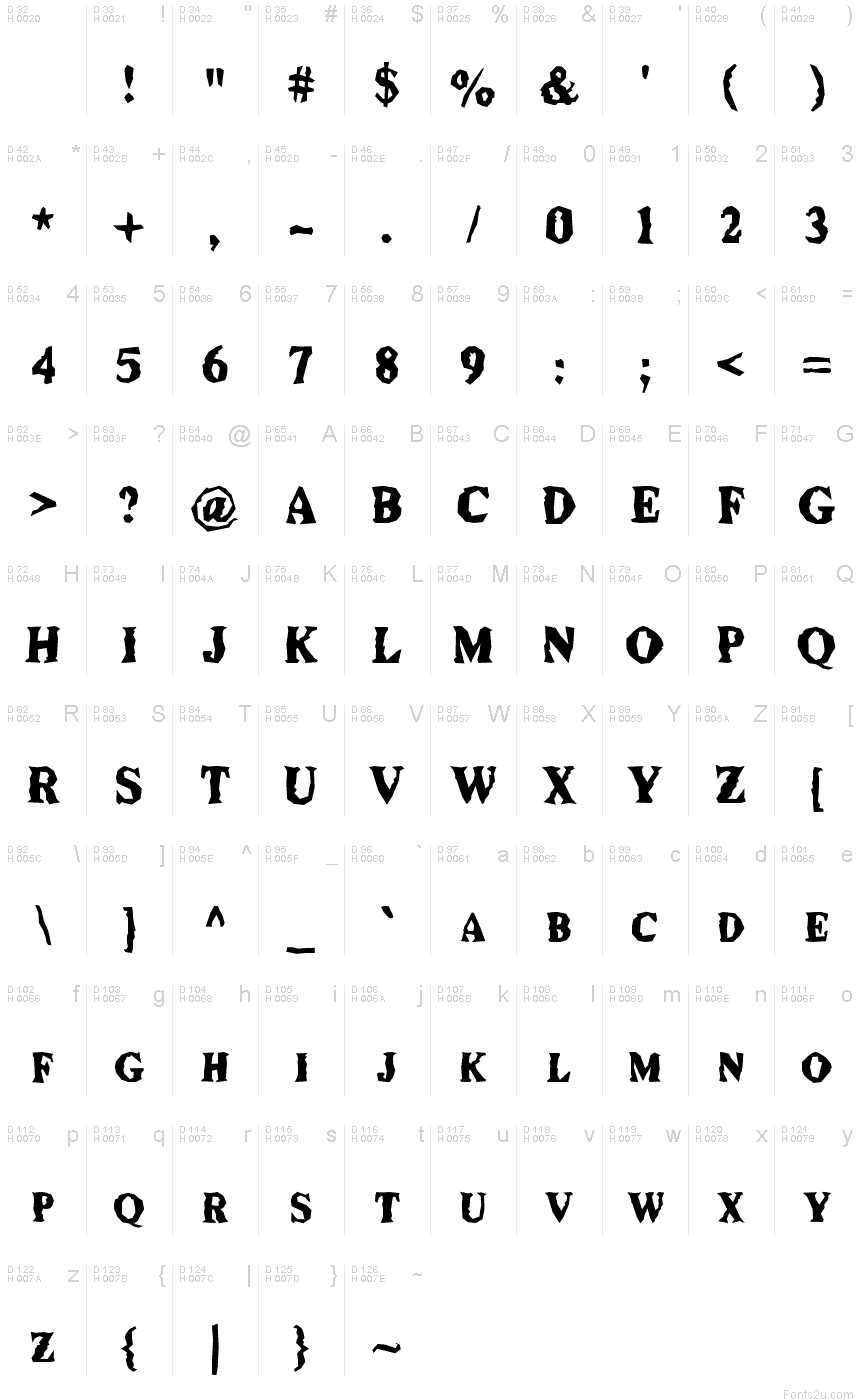
Durian Republik
Durian Republik font by Annie de la Vega leans into jagged, cut-paper shapes that feel both playful and slightly menacing. The black, irregular silhouettes give each letter a stomping rhythm, perfect when you want text to lurch forward instead of sitting politely in line. This free font pushes horror, punk, or DIY moods while staying readable at a glance.
Use Durian Republik for gig posters, Halloween flyers, indie game titles, zines, edgy branding, or loud YouTube thumbnails. Its chunky forms work best at large sizes; keep body copy in a clean sans serif so the rough texture has room to breathe. This free font thrives with bold color, grunge backgrounds, and layouts that don’t mind looking a bit unruly.
Created for MadCaps by Annie de la Vega.